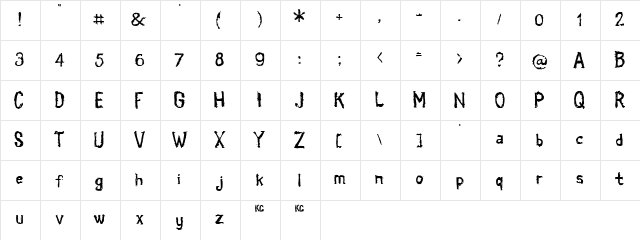
Coldbringer KG Normal Free Font
Coldbringer KG Normal
Design Context for Coldbringer KG
Coldbringer KG is a composed and adaptable typeface that performs quietly and consistently across a wide range of design contexts.